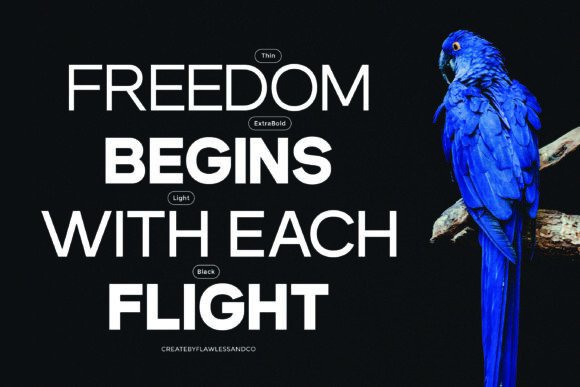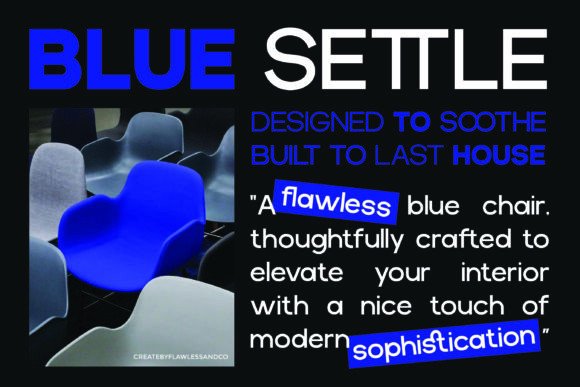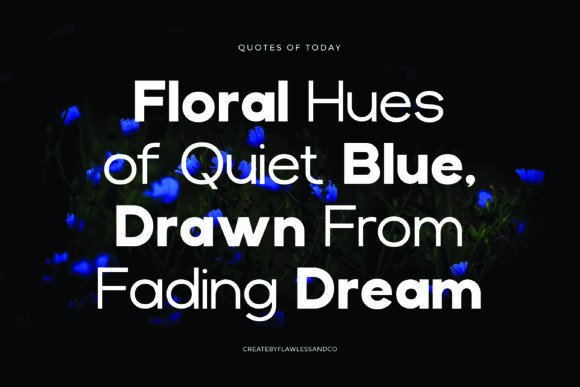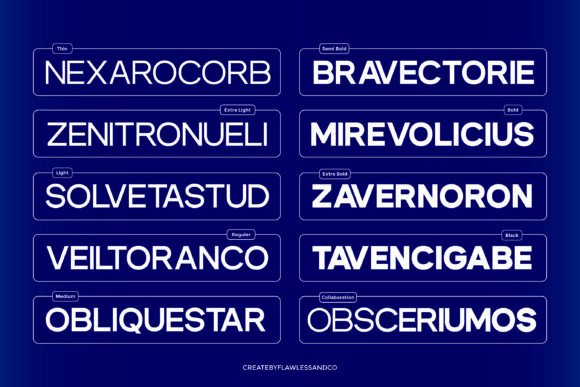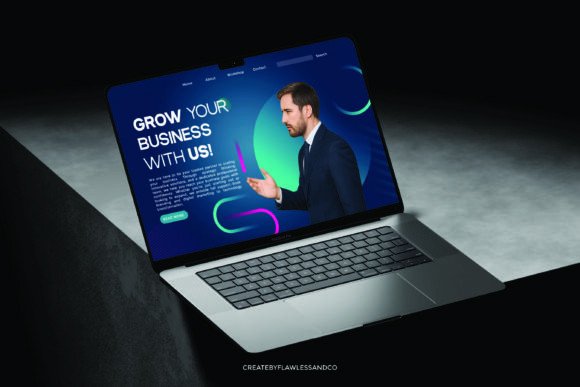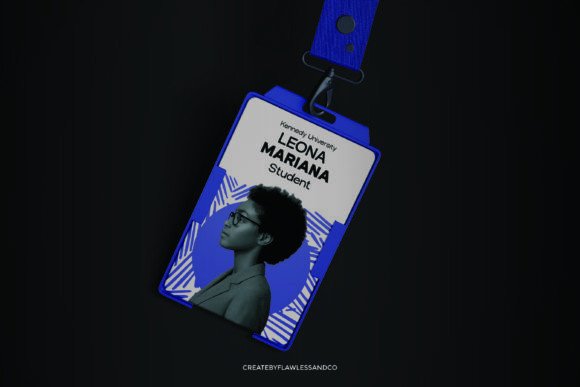
Introducing Dectone Font: The Ultimate Modern Sans Serif for Professionals
In the world of typography, a font can make or break a design. For professionals who value clarity, versatility, and clean design, Dectone Font is the perfect solution. This modern sans serif family font is crafted to meet the needs of designers who require a high level of flexibility and precision in their work. With its 9 distinctive styles ranging from Thin to Black, Dectone offers the perfect tool for creating dynamic hierarchies and striking compositions across various media.
Key Features of Dectone Font
- 9 Distinctive Styles: Dectone Font comes in 9 different styles, ranging from Thin to Black, providing designers with a wide range of options to create visual interest and hierarchy in their designs.
- Balanced Proportions: The font features balanced proportions, ensuring that it looks great in both print and digital platforms.
- Sharp Geometry: Dectone’s sharp geometry gives it a modern and sleek look, perfect for designers who want to create a contemporary feel in their designs.
- Smooth Readability: The font is designed for smooth readability, making it perfect for body text, headings, and titles.
Versatility Across Various Media
Dectone Font is built to excel in both print and digital platforms, making it the perfect choice for a wide range of design projects. Whether you’re working on:
- Corporate Branding: Create a professional and modern image for your brand with Dectone’s clean and sleek design.
- Editorial Layouts: Use Dectone to create visually appealing and easy-to-read layouts for magazines, newspapers, and books.
- Digital Interfaces: Dectone’s smooth readability and sharp geometry make it perfect for digital interfaces, such as websites, apps, and software.
- Product Packaging: Create eye-catching and modern packaging designs with Dectone’s bold and striking styles.
Dectone Font offers a range of benefits for designers and crafters, including:
- Flexibility: With 9 distinctive styles, Dectone provides designers with the flexibility to create dynamic hierarchies and striking compositions.
- Consistency: Use Dectone across various media to maintain a consistent visual identity for your brand or project.
- Readability: Dectone’s smooth readability ensures that your text is easy to read, even in small sizes.
- Modern Look: Dectone’s sharp geometry and clean design give it a modern look that’s perfect for contemporary designs.
In conclusion, Dectone Font is a versatile and modern sans serif family font that’s perfect for professionals who value clarity, versatility, and clean design. With its 9 distinctive styles, balanced proportions, sharp geometry, and smooth readability, Dectone is built to excel in both print and digital platforms. Whether you’re working on corporate branding, editorial layouts, digital interfaces, or product packaging, Dectone Font is the perfect choice for creating dynamic hierarchies and striking compositions.